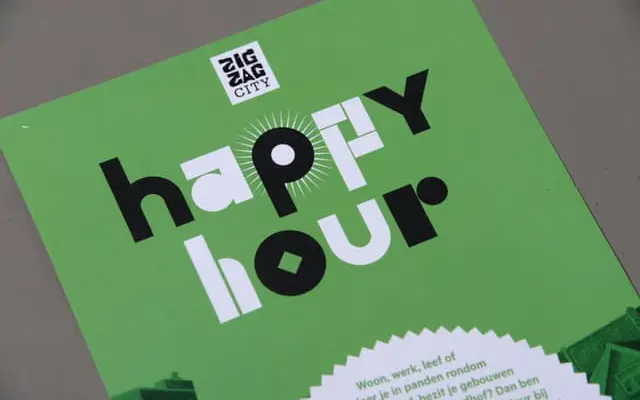
A geometric display family from Typotheque offered in six styles defined by terminal shape: Round, Square and Mix, each in Light and Bold.
Julien organises itself around three terminal treatments, Round, Square and Mix, rather than the conventional weight-to-width axis. Two weights, Light and Bold, run across all three variants, producing six distinct styles. The family suits headline and identity work where the choice of terminal character can carry visual meaning.
Julien is a display typeface offered in Round, Square and Mix terminal variants across two weights, placing it firmly in the geometric display category with a structured, modular character.